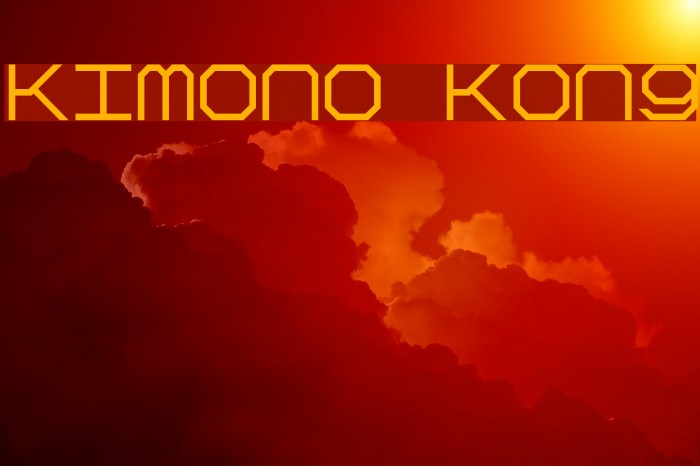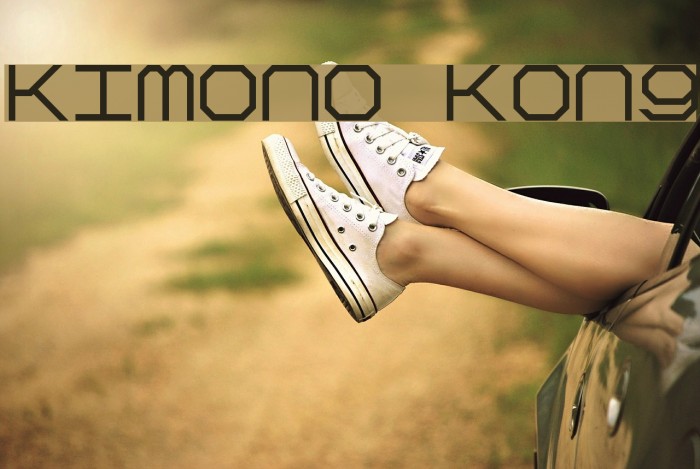
Kimono Kong Font
This font features a geometric and angular design, characterized by its distinct octagonal shapes and sharp edges. Each character is constructed with a consistent line thickness, giving it a uniform and structured appearance. The uppercase and lowercase letters maintain a cohesive style, with the lowercase letters slightly more rounded in some instances. The numerals and special characters follow the same geometric pattern, ensuring a harmonious look across all glyphs. This font's unique style is reminiscent of digital or futuristic themes, making it stand out in any design project.
A geometric, angular font with octagonal shapes and consistent line thickness.
- Proposed Projects: Ideal for digital designs, tech-themed projects, video game graphics, and futuristic branding.